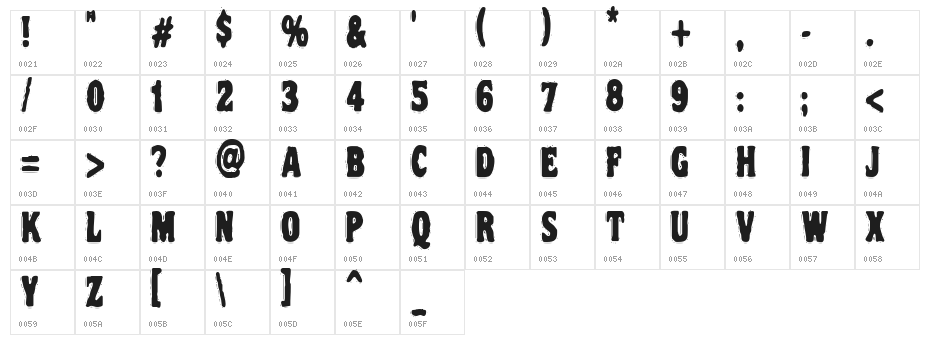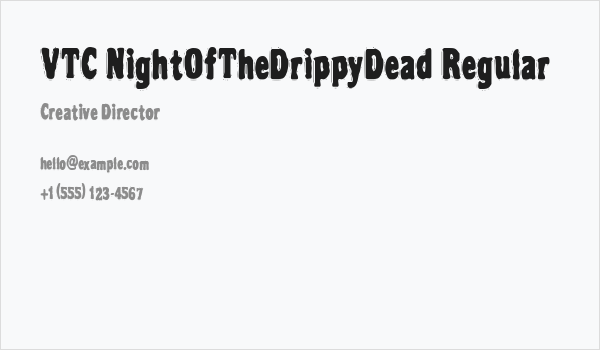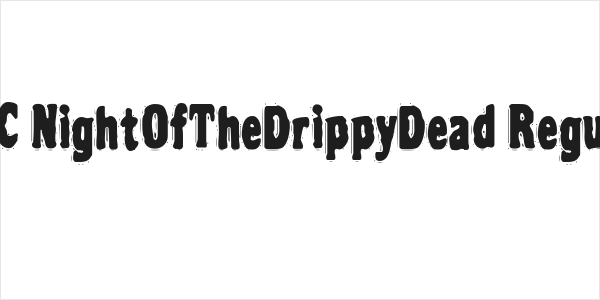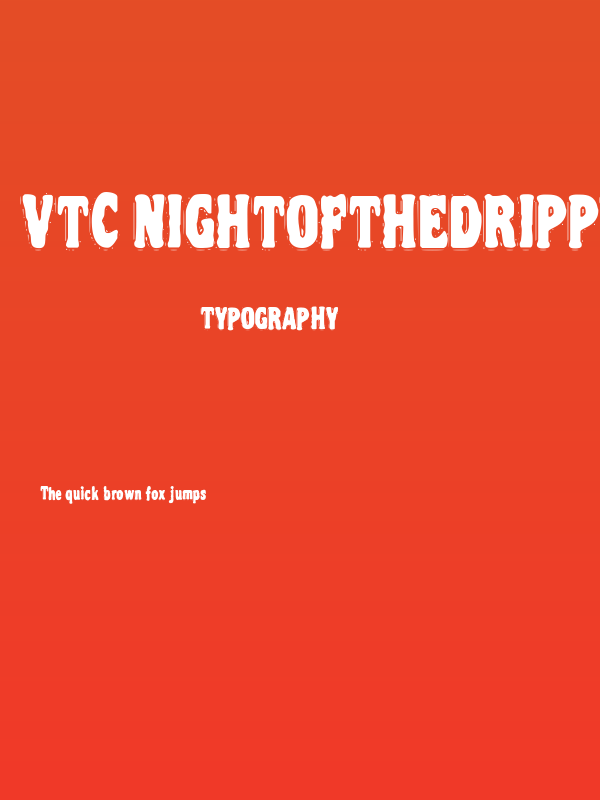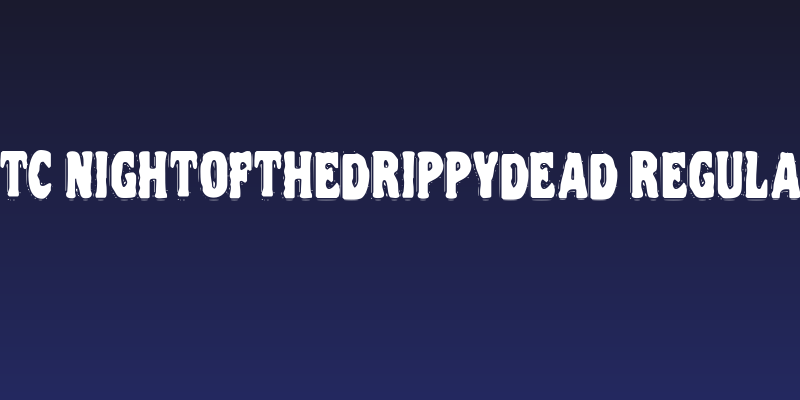
VTC NightOfTheDrippyDead Regular Font
VTC NightOfTheDrippyDead Regular Description
This font features a bold and playful design with a dripping effect that gives it a spooky and fun appearance. The characters are thick and rounded, with uneven edges that create a sense of movement and fluidity. The uppercase and lowercase letters maintain a consistent style, while the numbers and special characters complement the overall theme. This font is ideal for projects that require a dramatic and eye-catching look, such as Halloween-themed designs or playful branding.
| Proposed Projects | Ideal for Halloween invitations, horror movie posters, themed party decorations, and playful branding. |